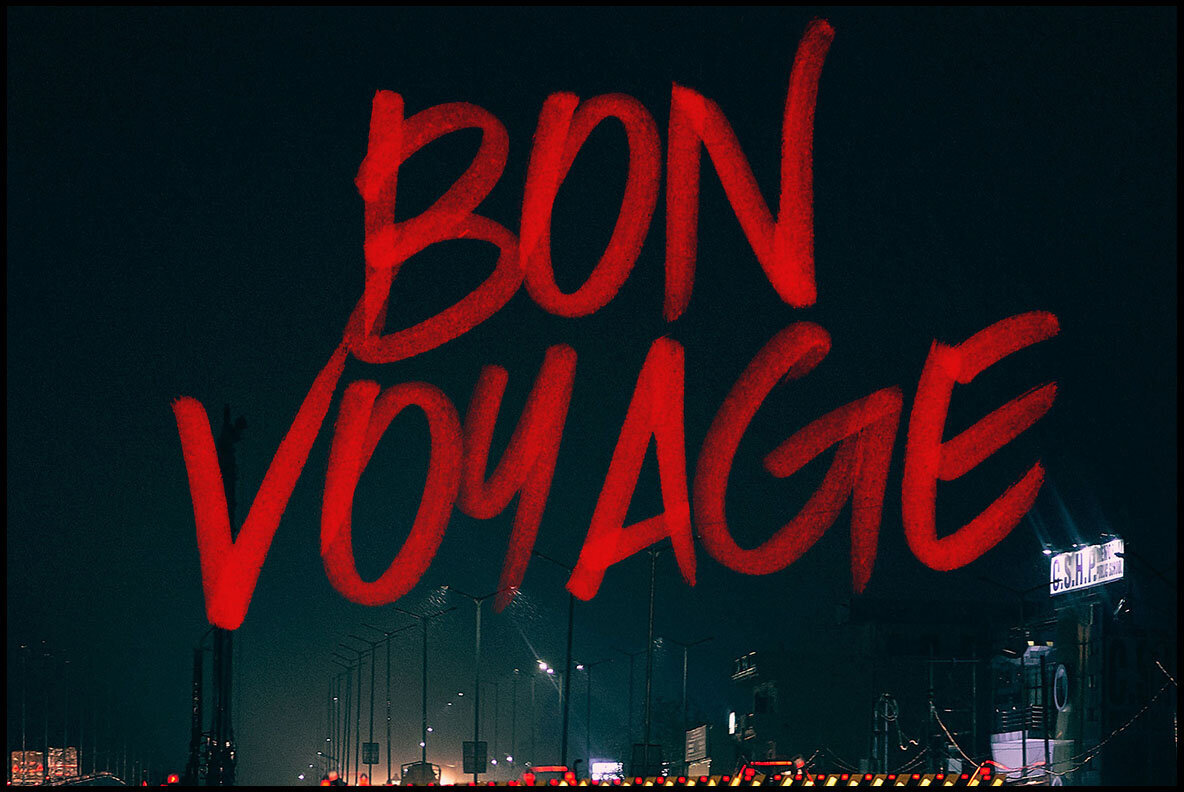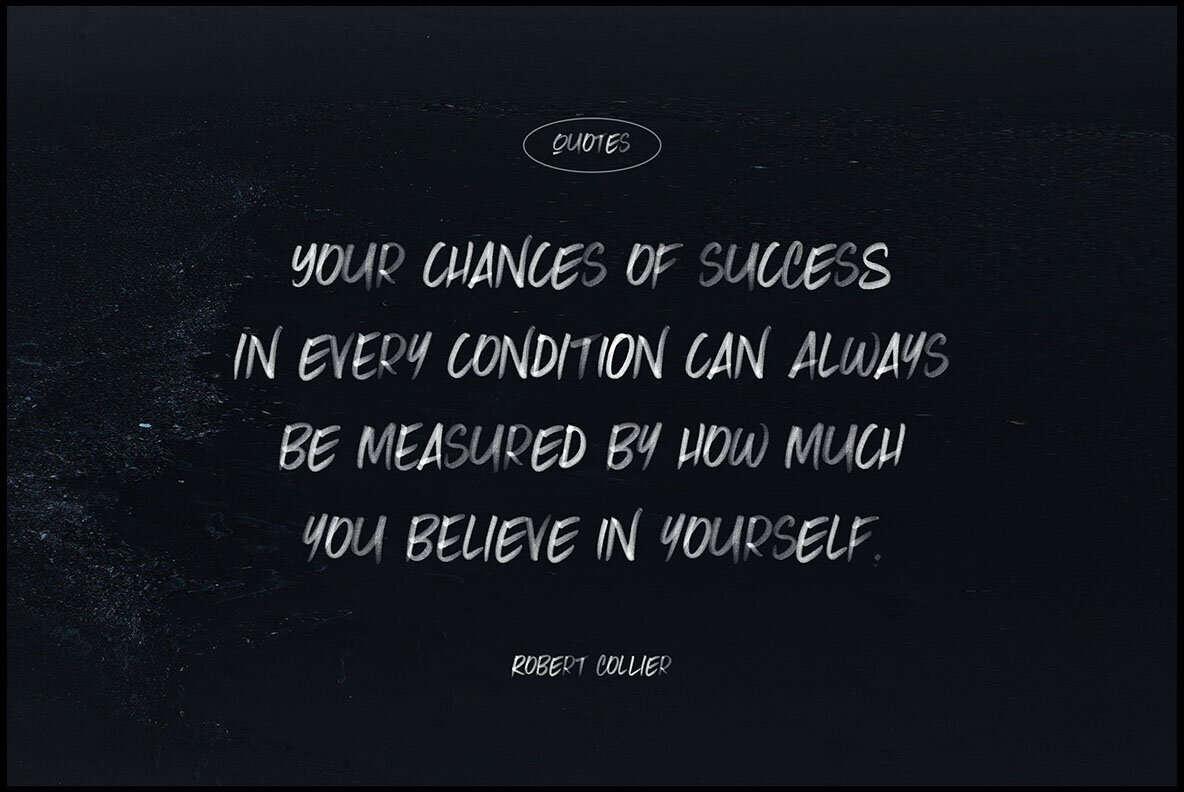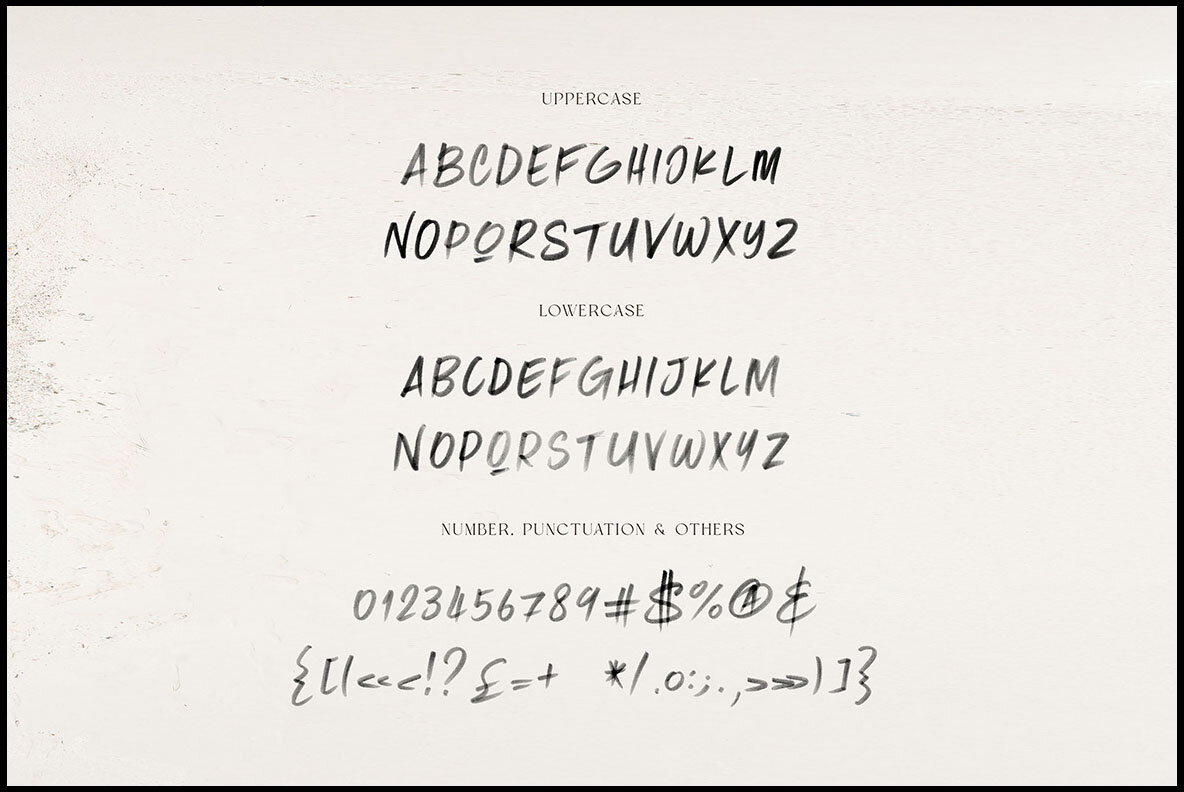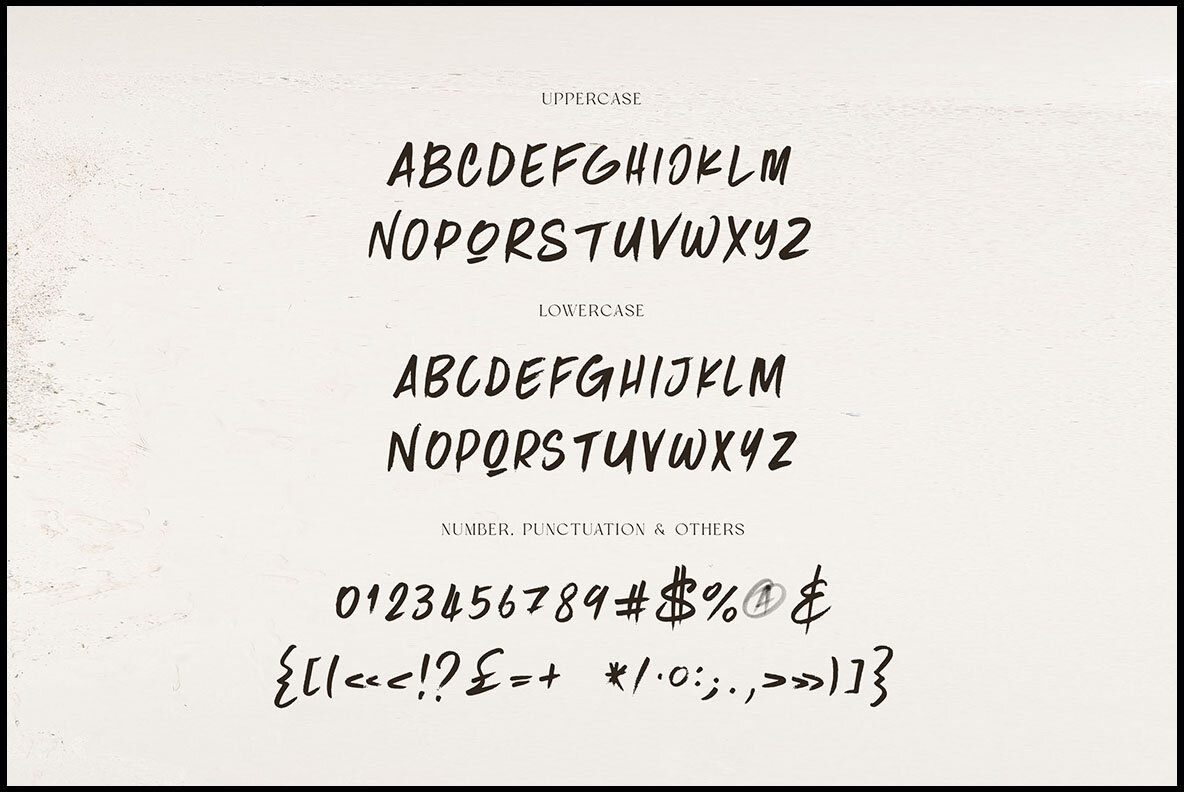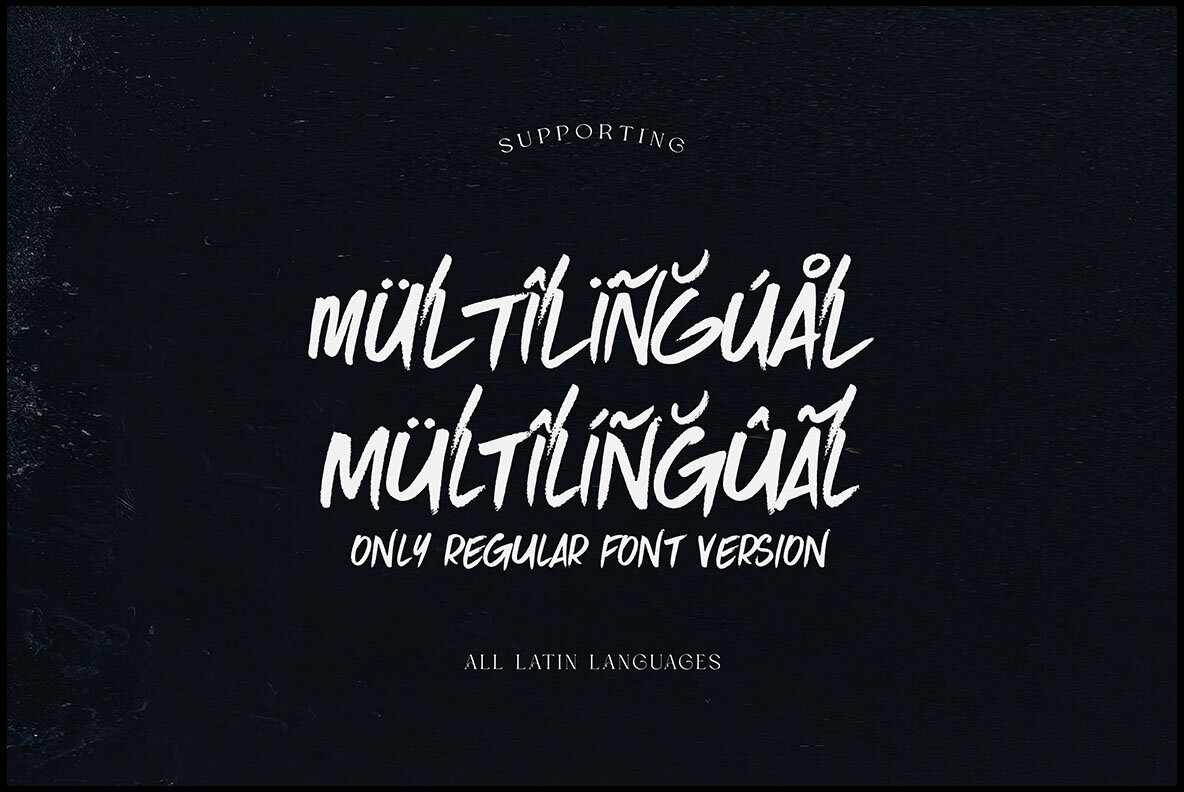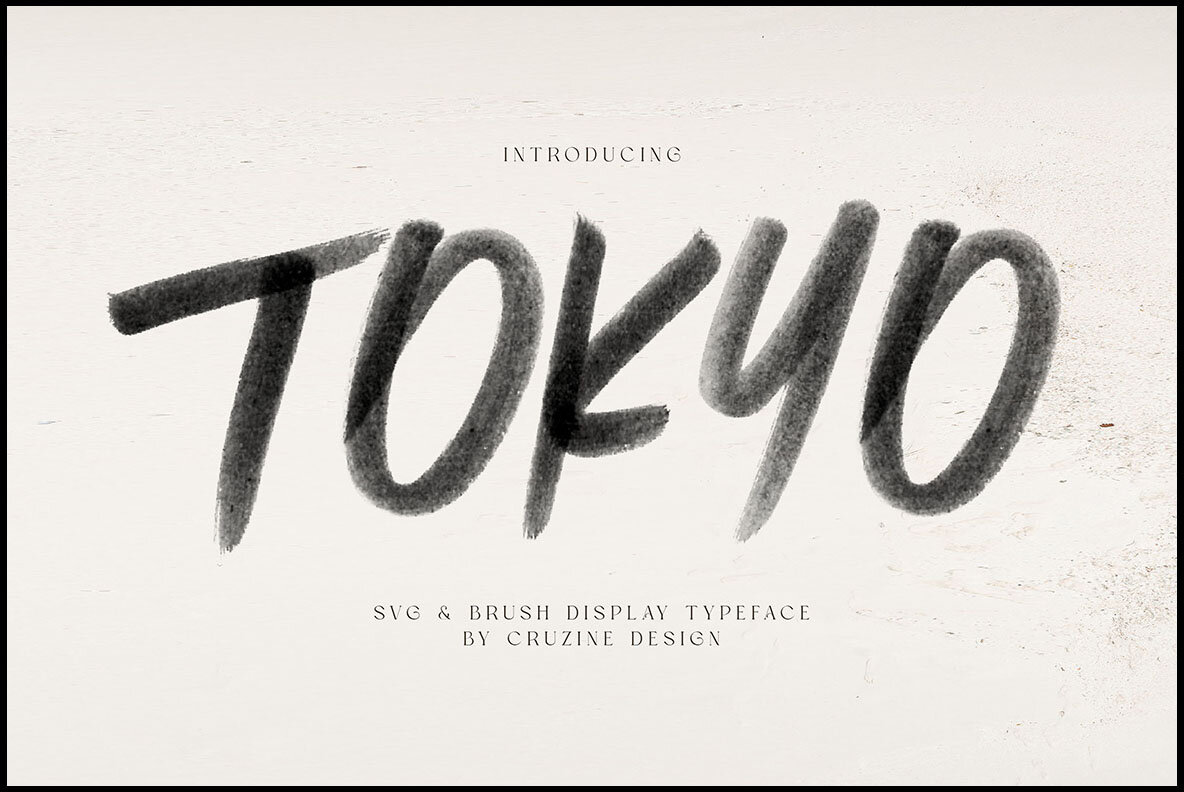
Tokyo SVG Brush Font
Tokyo SVG Brush by Peter Olexa is a distinctive sans serif display font, crafted with a bold marker for a rough or grunge effect. This handwritten style is ideal for adding an artistic touch to urban or grunge-themed projects.Tokyo SVG Brush: A Grunge Style Sans Serif